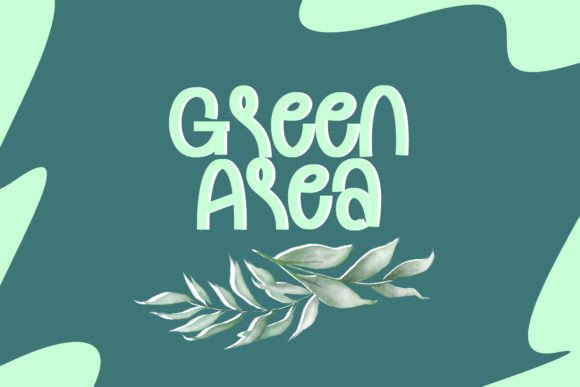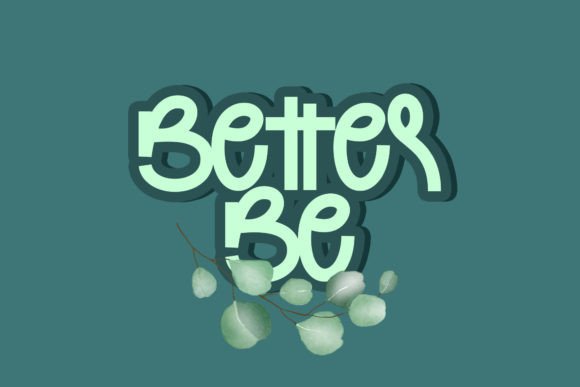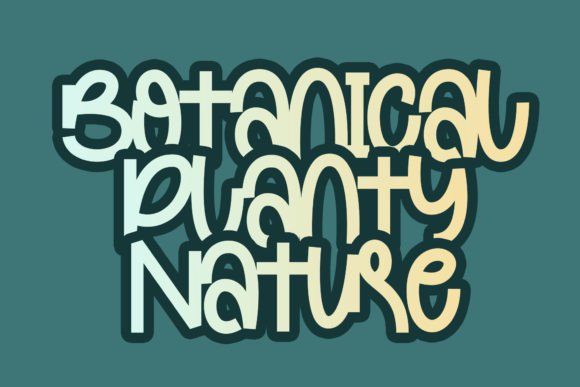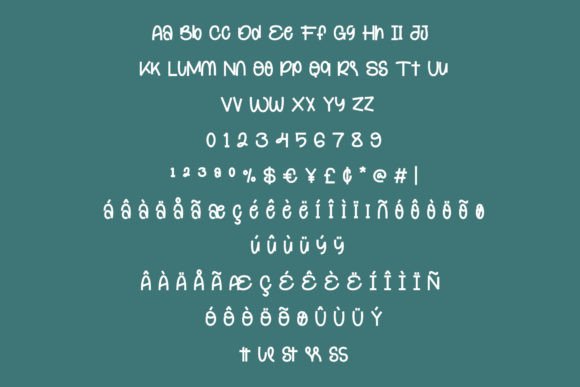
The Ultimate Guide to Bonelly Font: A Fun Display Font for Creative Projects
What is Bonelly Font?
Bonelly Font is a display font designed to add a touch of fun and personality to your projects. Its playful style makes it perfect for a variety of applications, including posters, t-shirts, websites, social media, and more. The font comes with standard English letters, numbers, punctuation, and several accents, making it a great choice for multilingual designs.
So, what do I love about Bonelly Font? Here are a few things that make it stand out:
• ✨ Unique style: Bonelly Font has a one-of-a-kind look that’s sure to grab attention.
• ✅ Multilingual support: With several accents and support for multiple languages, this font is perfect for global designs.
Of course, no font is perfect, and Bonelly Font has a few small quirks:
• 🤔 Limited use cases: As a display font, Bonelly Font is best used in moderation. It may not be suitable for body text or smaller sizes.
• ⚠️ No italic version: Currently, Bonelly Font only comes in a single style, which may limit its versatility in certain designs.
Bonelly Font was designed with the intention of creating a fun and playful font that could be used in a variety of creative projects. The designer, inspired by the world of graffiti and street art, aimed to create a font that would capture the essence of urban culture. With its unique style and versatility, Bonelly Font has become a popular choice among designers and crafters.
Is Bonelly Font suitable for body text? No, Bonelly Font is a display font and is best used in moderation for headlines and titles.